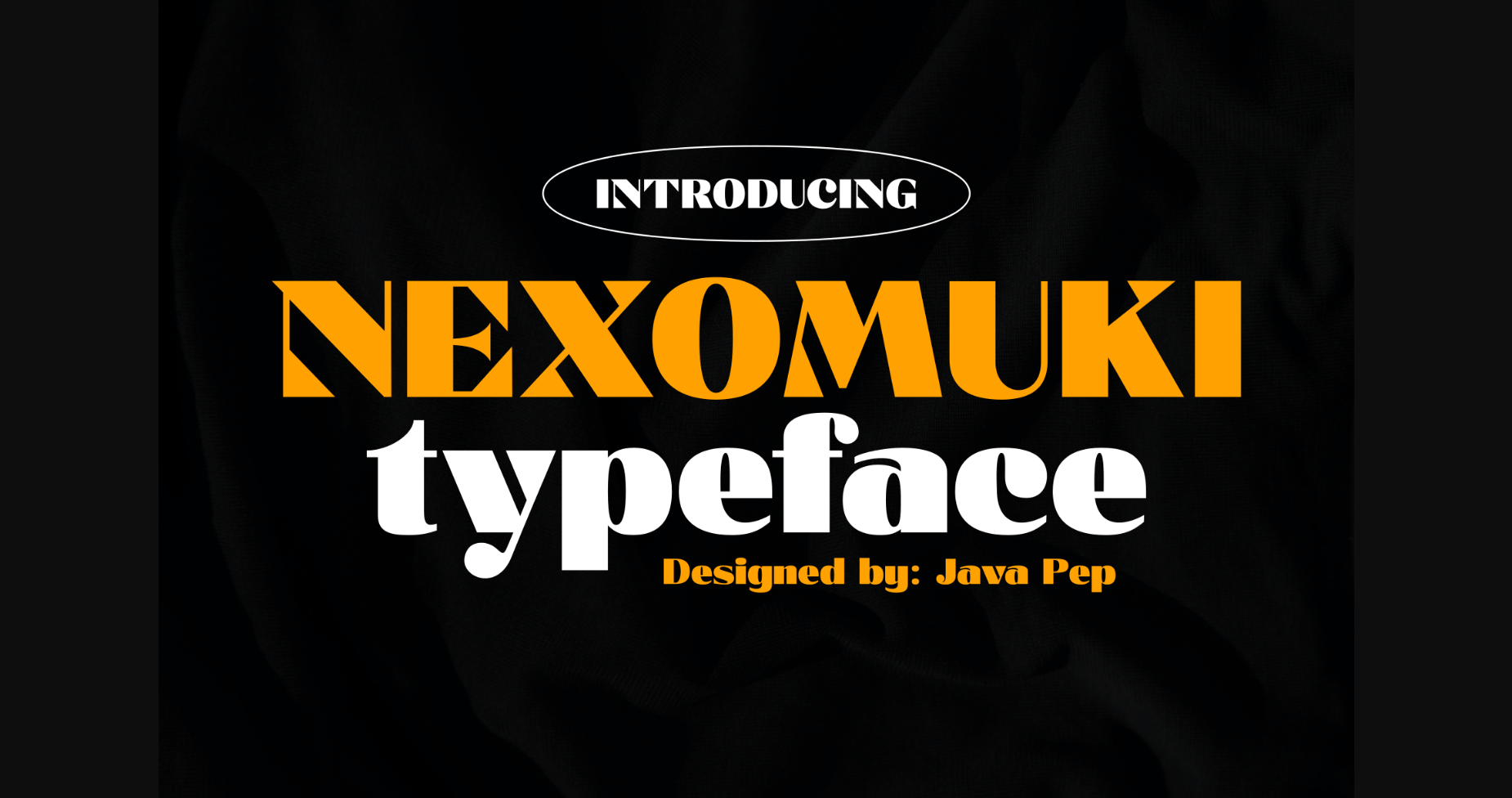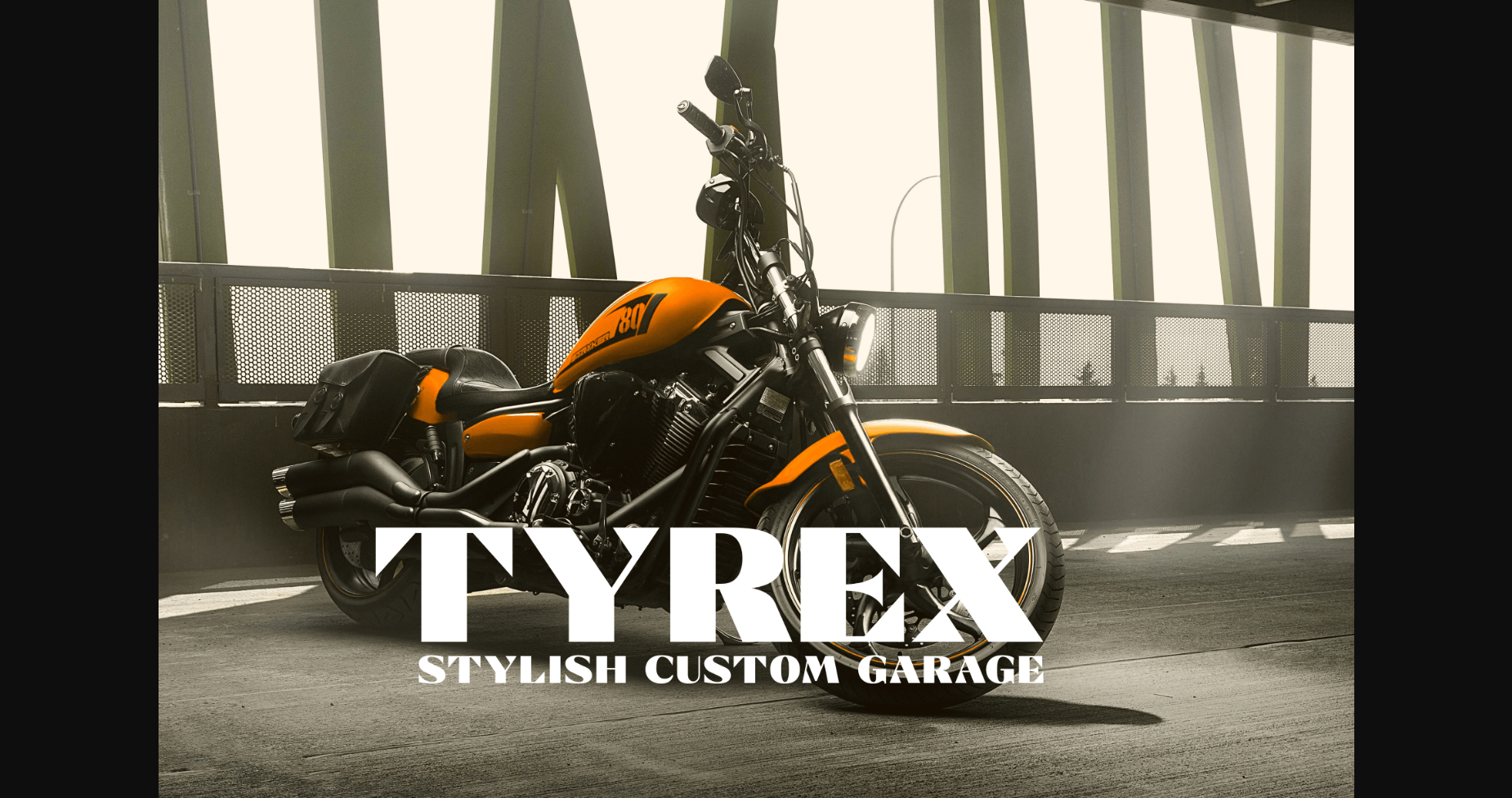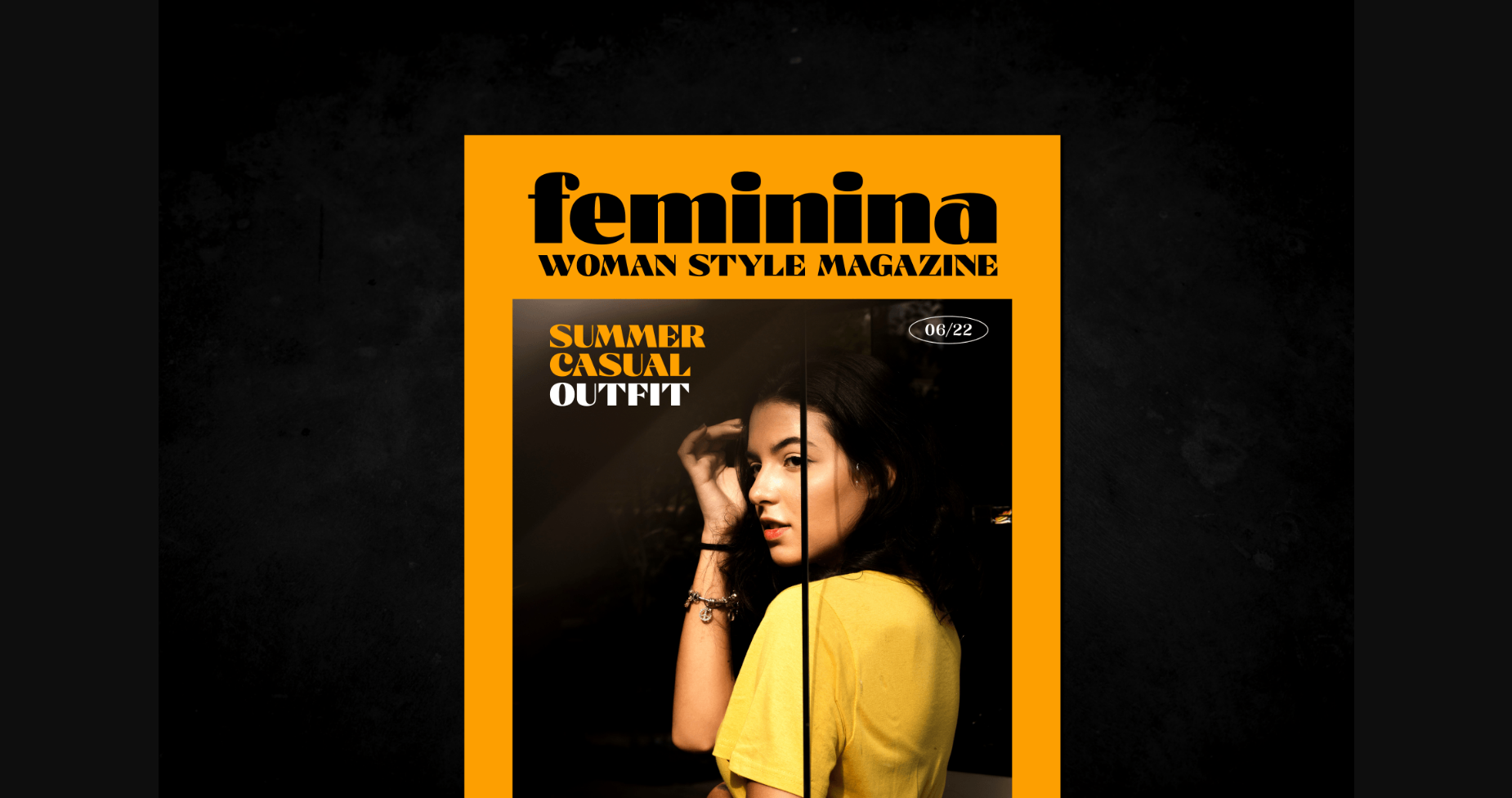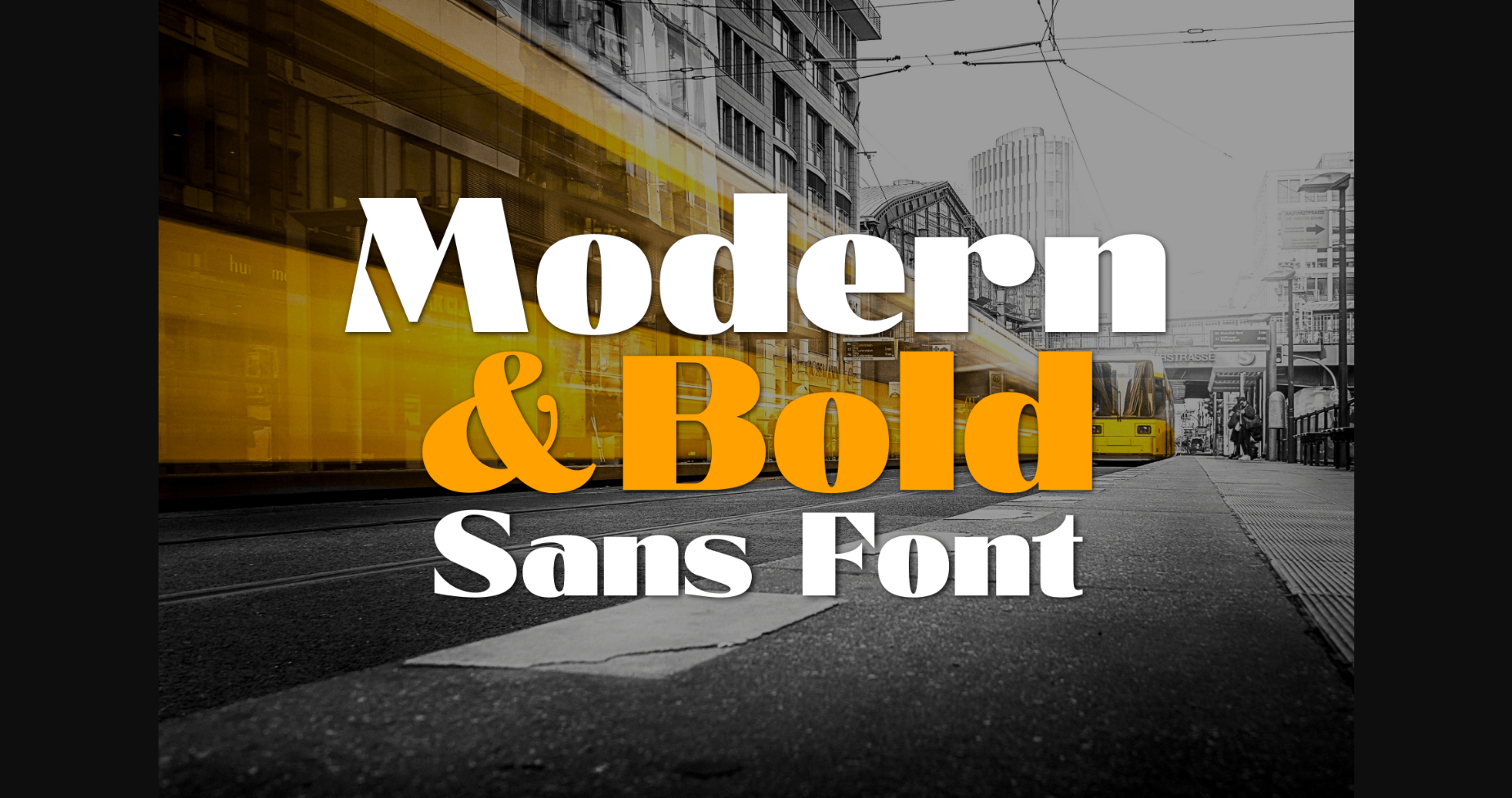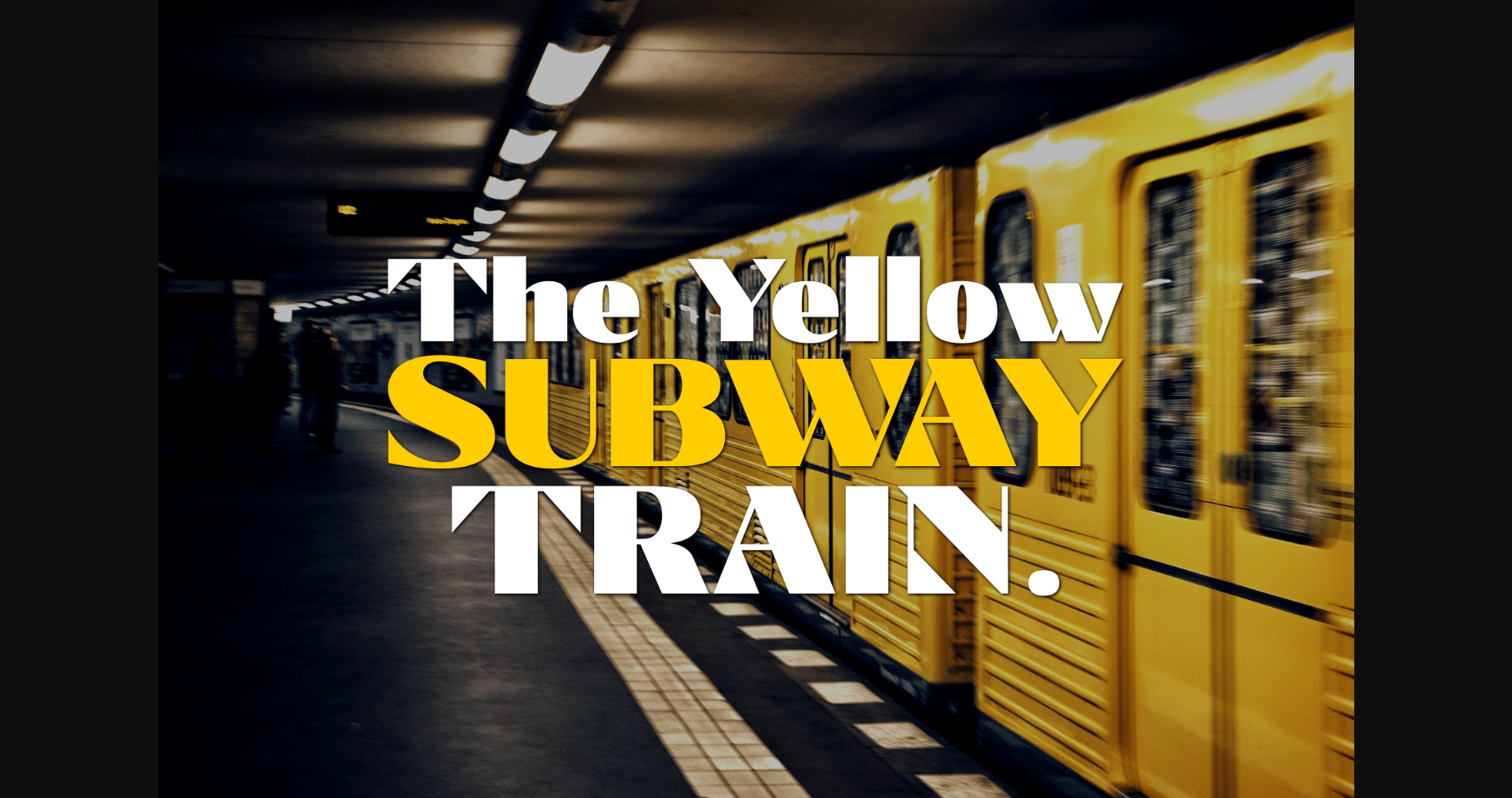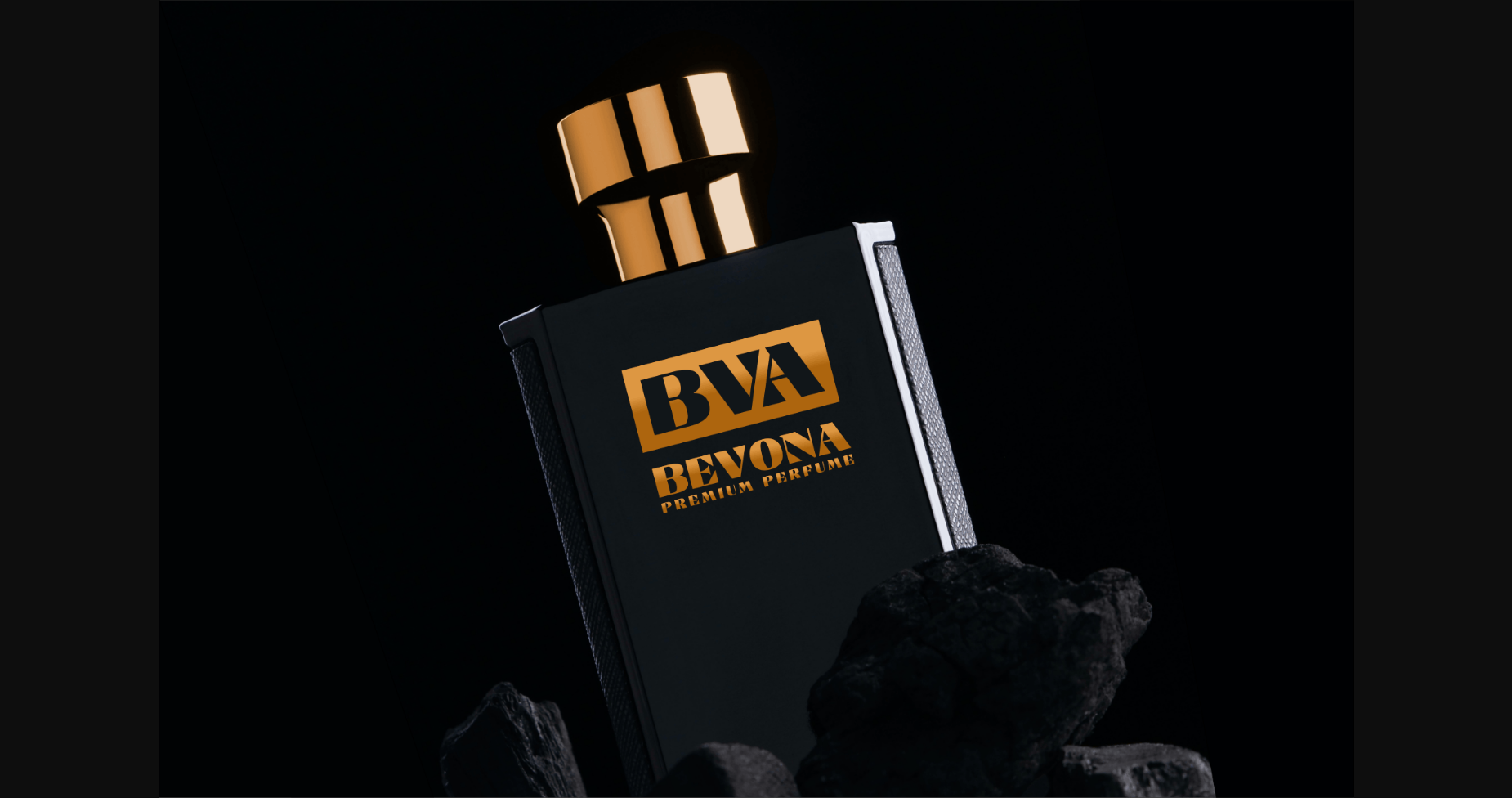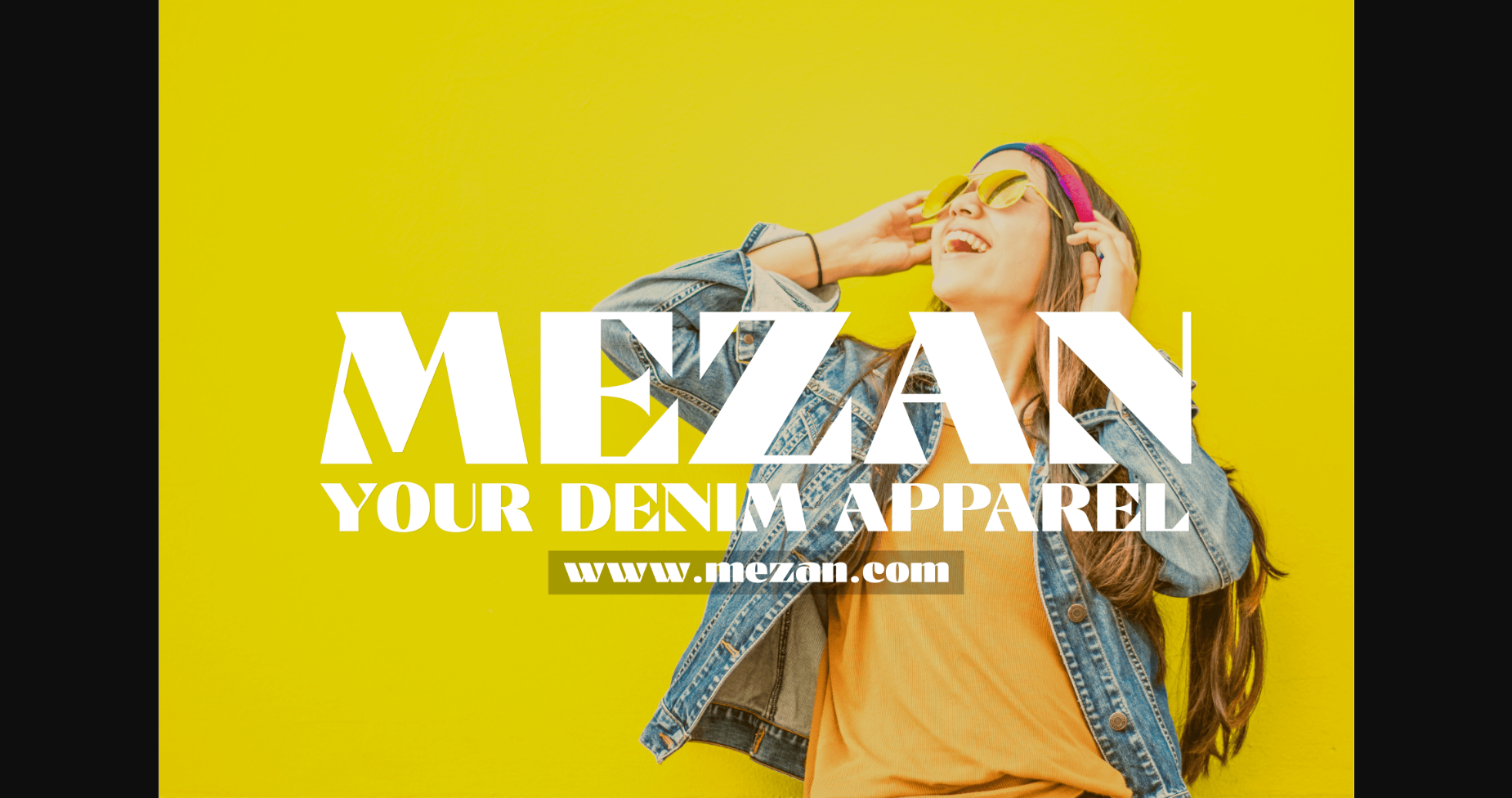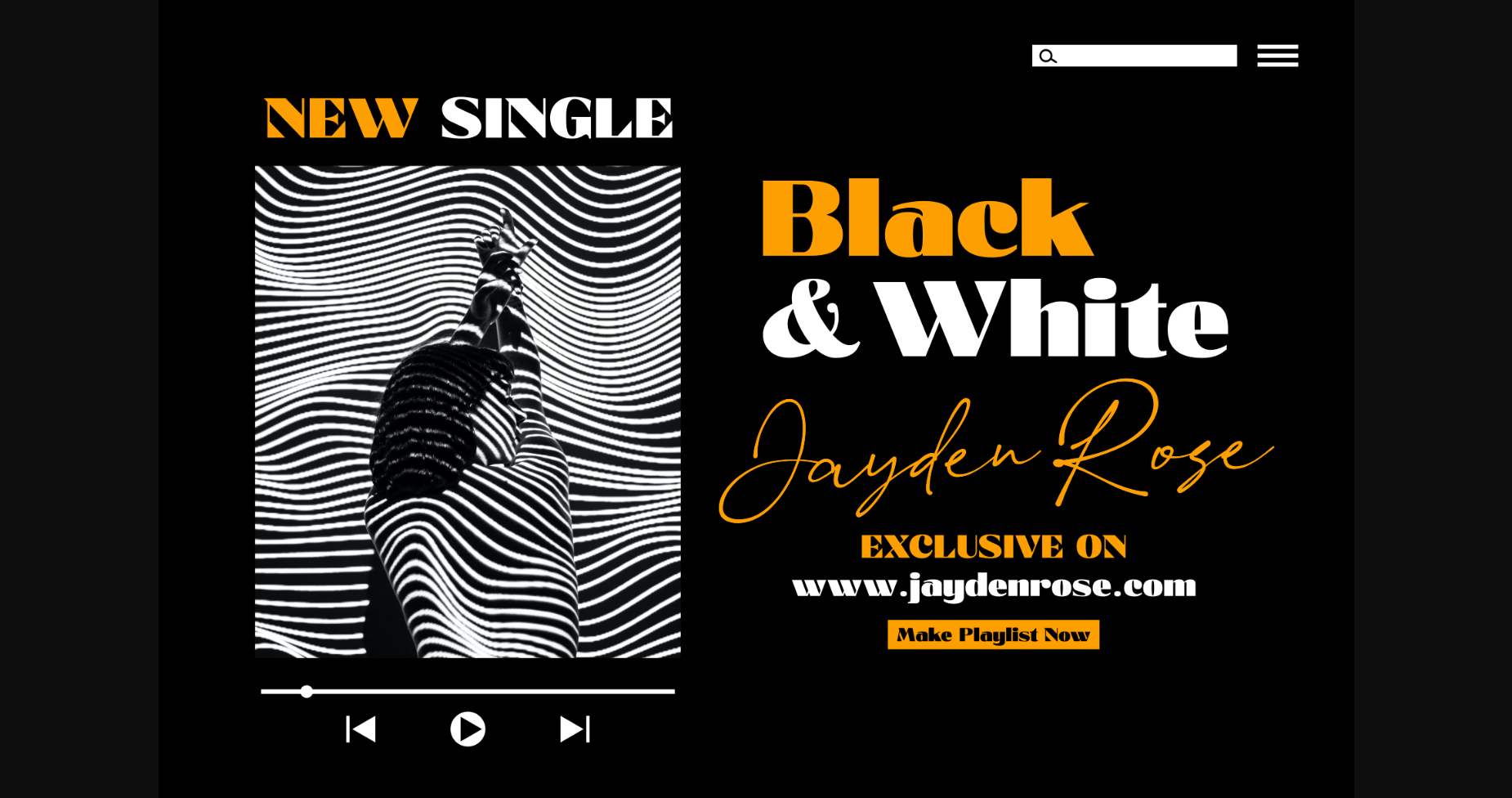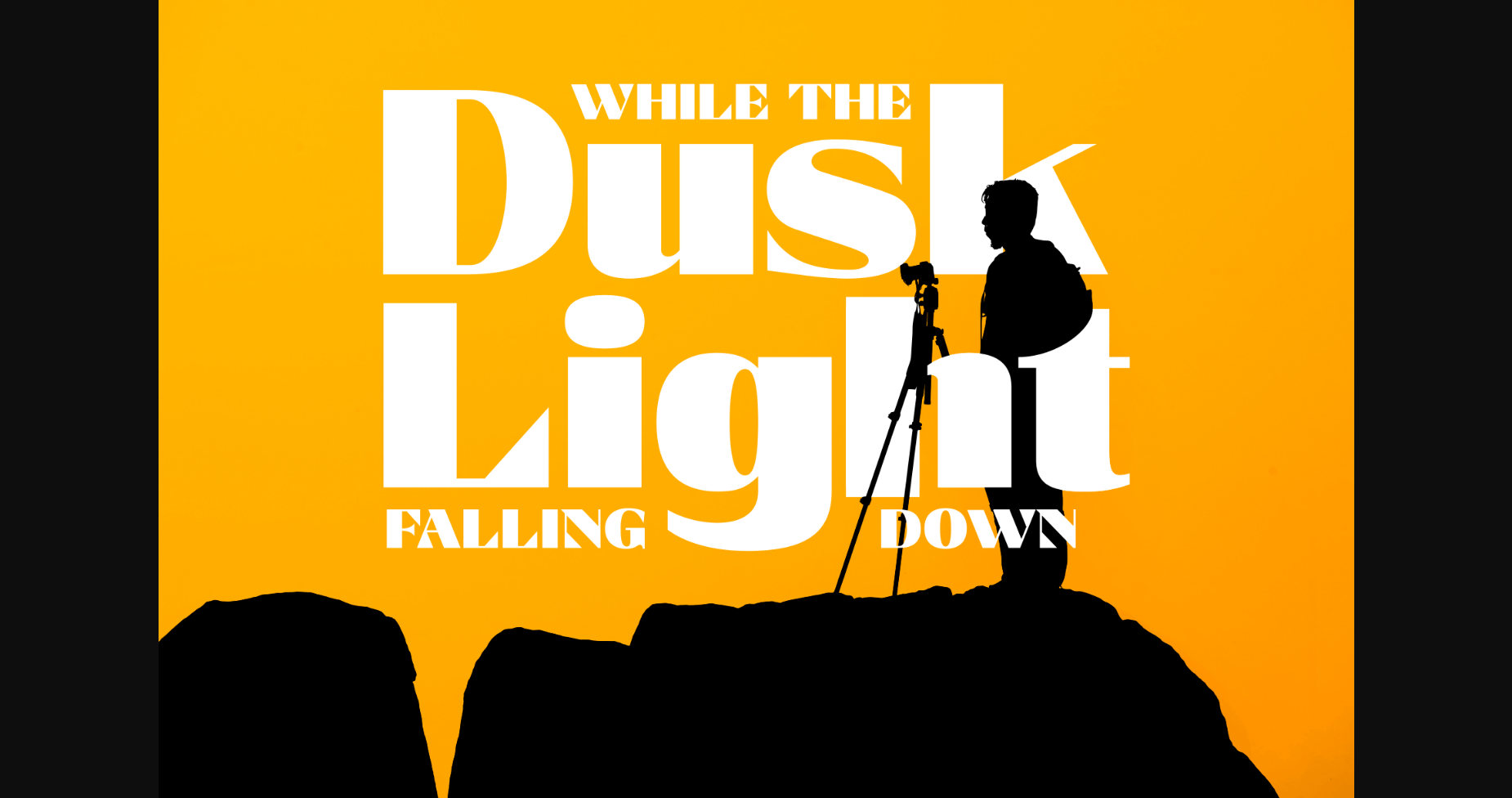
Nexomuki Font
About Nexomuki Font
Proudly present the fresh from the oven, modern and bold sans serif font, Nexomuki. It was made with rising to feel modern and bold but still looks elegant too. Perfect pairing among uppercase and lowercase characters is suitable for your project design such as logotype, branding, headline text, advertising, slogan, quote, magazine, publishing, and more.